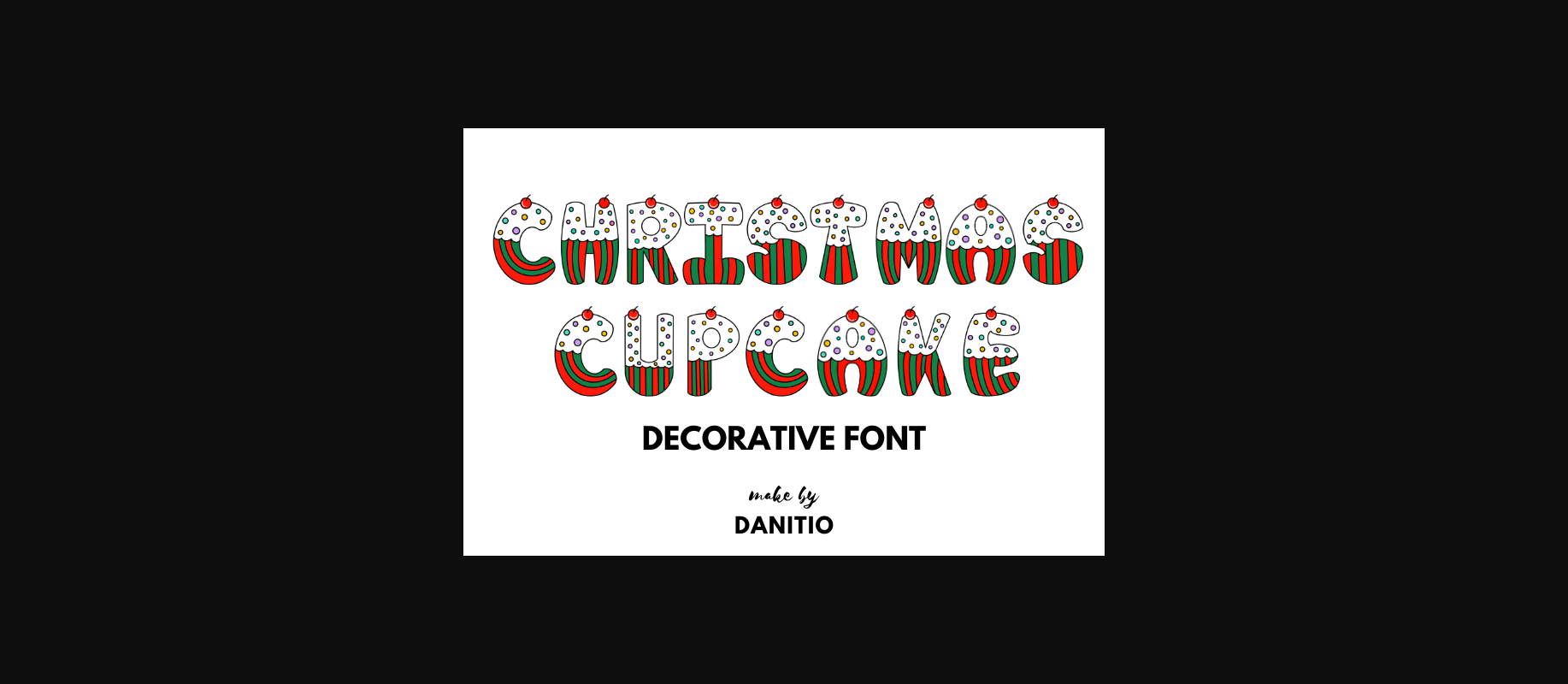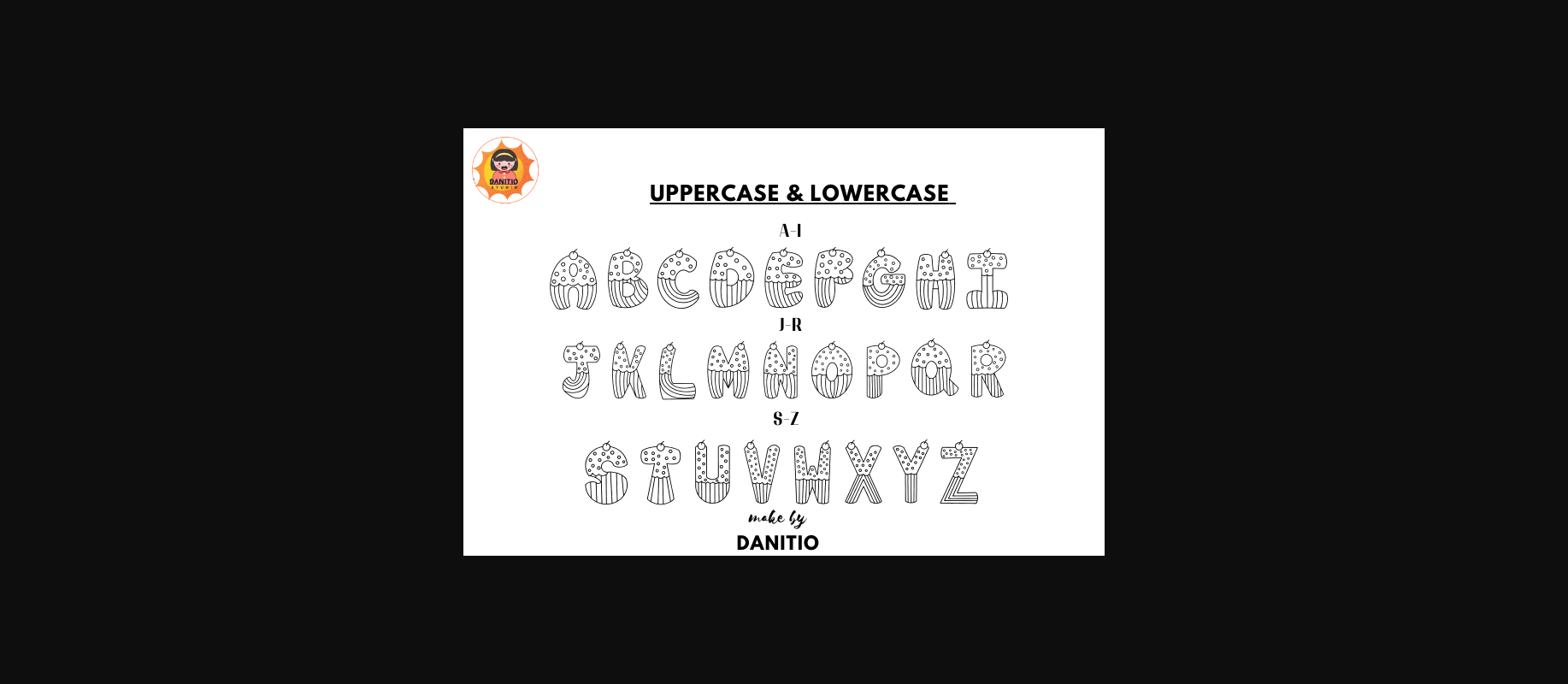
About Christmas Cupcake Font
Christmas Cupcake is a cute decorative font perfect for the Christmas season You can give your Christmas-themed project a fun and quirky atmosphere. Spread the joy of the season with this font. And let your creativity shine during this fun time of the year.